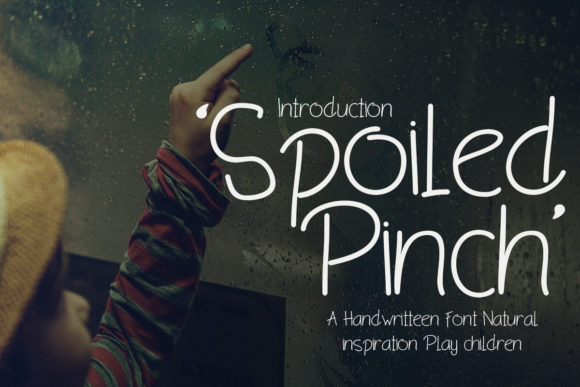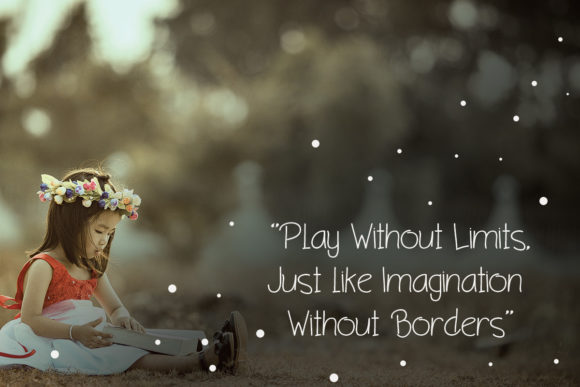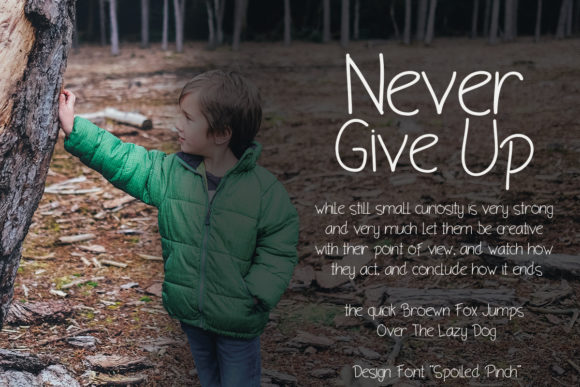
About Spoiled Pinch Font
Spoiled Pinch is a cute and simple lettered handwritten font. Add it to your favorite school projects or children designs and you will fall in love with the results.